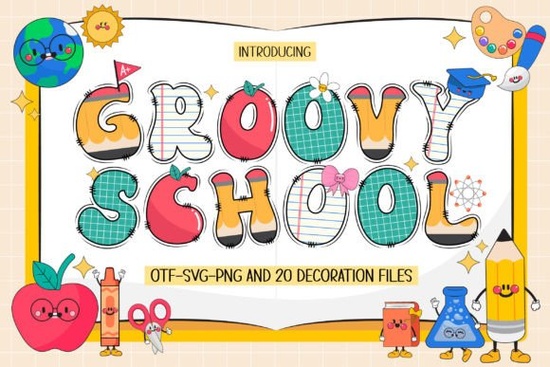
If you've been searching for a Groovy School Font that actually captures the fun, energetic vibe of school days, this one from Creative Fabrica is worth a close look. It comes packed with four unique font styles and 20 matching school doodles giving you a complete toolkit for everything from classroom posters to personalized DIY crafts. Whether you're a teacher, a small business owner, or someone who loves making things with a Cricut or Silhouette machine, there's a lot to work with here.
What's Included in the Groovy School Font Set?
This isn't just a single font file. The set includes 4 distinct font styles that all share the same playful, groovy aesthetic. You also get 20 matching school doodles think pencils, books, apples, and other classroom-themed elements that pair naturally with the lettering.
That combination makes it easy to build a consistent visual style across a project without mixing and matching from different sources. For anyone creating instructional materials, party decorations, or back-to-school signage, having everything designed to work together saves real time.
What Can You Make With a School-Themed Font Like This?
The design possibilities are broader than you might expect. Here are a few project ideas that work particularly well with this style:
- Classroom decorations bulletin boards, door signs, and welcome banners
- Print-on-demand products t-shirts, tote bags, and mugs with school-related quotes
- Personalized items student name tags, locker labels, and custom stationery
- Digital designs social media graphics, newsletters, and school event flyers
- DIY crafts scrapbooking layouts, stickers, and greeting cards
The groovy style gives anything a retro, lighthearted feel that works especially well for elementary school and middle school projects, though it's playful enough for all-ages designs too.
Each one has its own character, so it depends on the tone you're going for. Groovy School leans into a fun, retro classroom aesthetic that feels warm and inviting without being too childish.
Is This Font a Good Fit for Print-on-Demand Sellers?
Absolutely with a few things to keep in mind. The black version works cleanly for most POD workflows since it's compatible with standard design tools. You can create layered designs, mockups, and production-ready files without running into compatibility issues.
The color version is better suited for digital products or designs where you'll be exporting directly from Photoshop or Illustrator. If your POD process involves uploading to platforms that only accept single-color vector files, stick with the black version and add color manually in your design software.
For anyone building a back-to-school product line, pairing this font with the matching doodles gives you a ready-made design system. You can create coordinated product sets a t-shirt, a mug, a poster that all feel like they belong together.
Starting with the black version is a safe bet if you want maximum compatibility. From there, you can explore the color version for digital or print projects where full-color lettering makes a real difference.